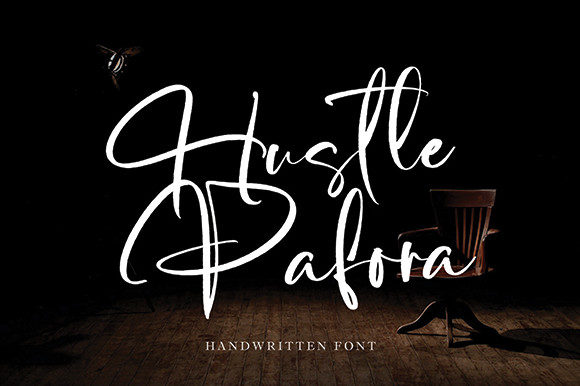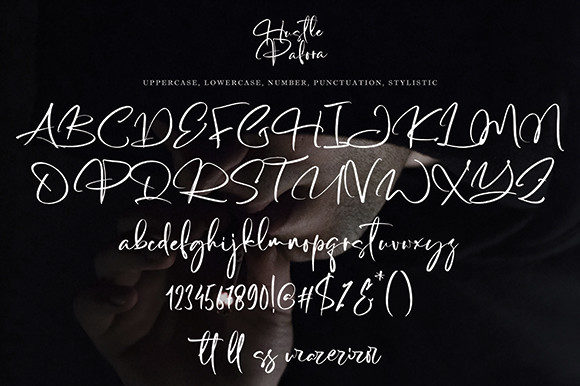
Hustle Pafora Font
About Hustle Pafora Font
Hustle Pafora is an exquisite handwritten font, masterfully designed to become a true favorite. It maintains its classy calligraphic influences while feeling contemporary and fresh. Fall in love with it and bring your projects to the highest levels!